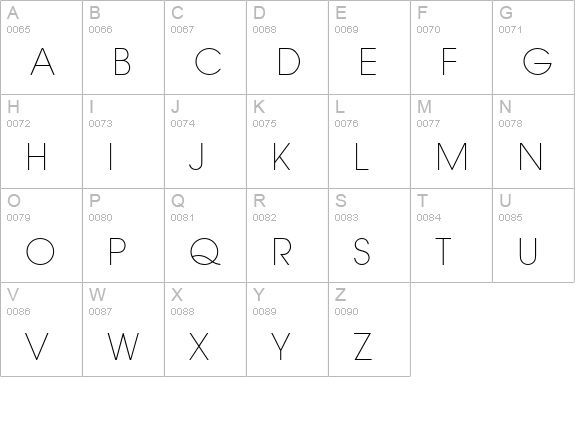
AvantGardEF-ExtraLight Font Details
AvantGardEF-ExtraLight is an airy, ultra-refined variant in the AvantGardEF typeface family \xE2\x80\x94 well suited to minimalist headlines and refined display use.
AvantGardEF-ExtraLight is a modern and sleek typeface that exudes elegance and sophistication. Its delicate and refined strokes create a sense of airiness and lightness, making it perfect for projects that require a touch of minimalism and sophistication. The ExtraLight weight of this font adds a subtle touch of delicacy, making it ideal for headlines, titles, and other design elements that need to stand out. What sets AvantGardEF-ExtraLight apart is its versatility and timeless appeal. Whether used for branding, editorial design, or digital projects, this font effortlessly conveys a sense of style and sophistication. Its clean lines and geometric shapes give it a contemporary edge, while its extra light weight adds a unique touch of refinement. The best part? AvantGardEF-ExtraLight is available for free download at FontsMarket.com, making it accessible to designers and creatives looking to elevate their projects with a touch of elegance. Don't miss out on this opportunity to enhance your designs with a premium font that exudes sophistication and style. Download AvantGardEF-ExtraLight today and add a touch of modern elegance to your projects.